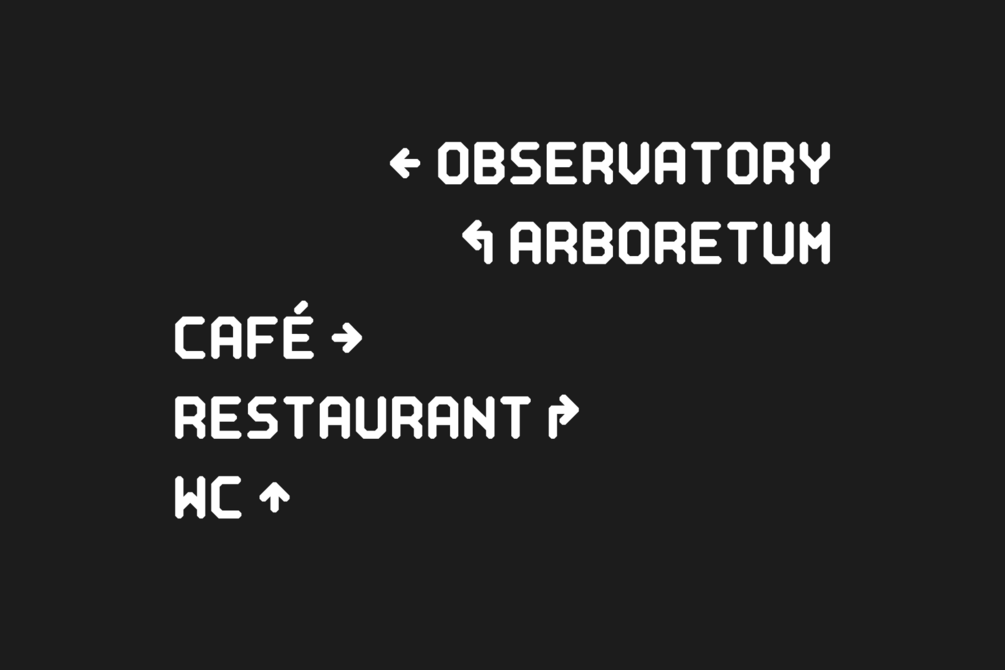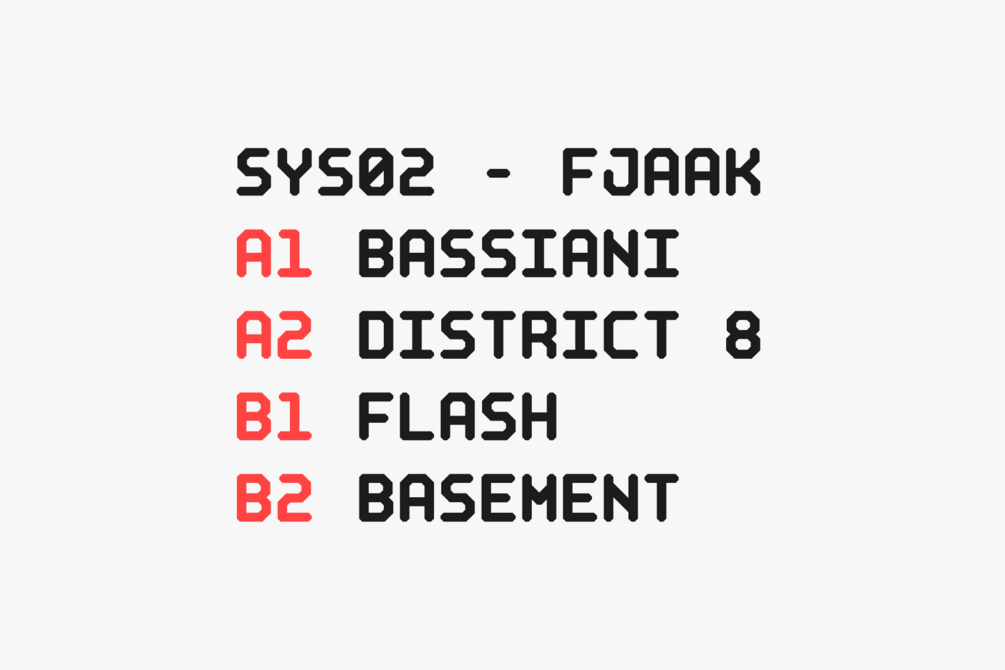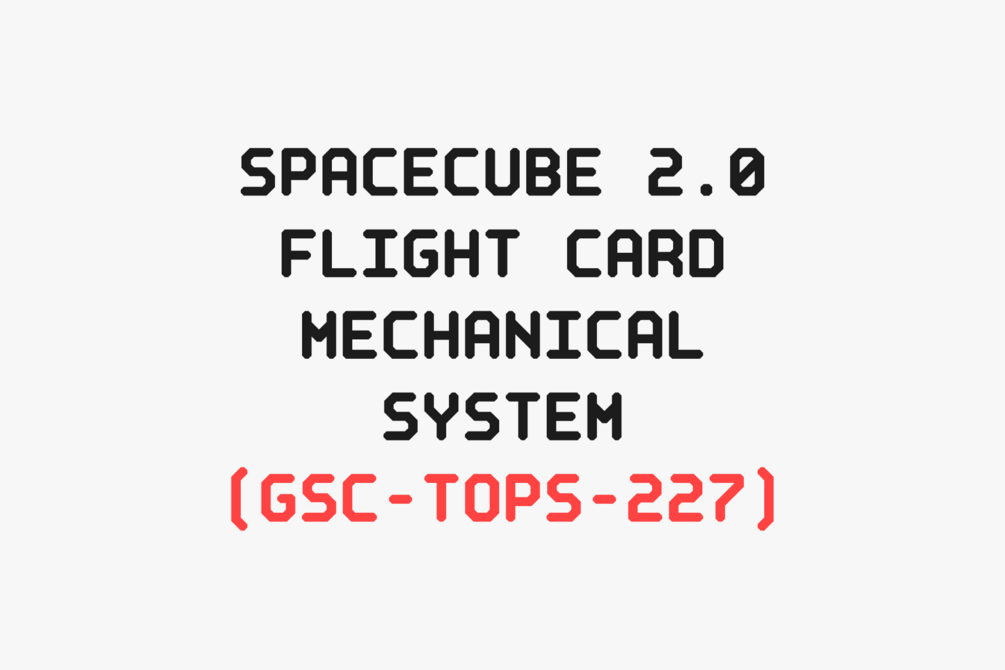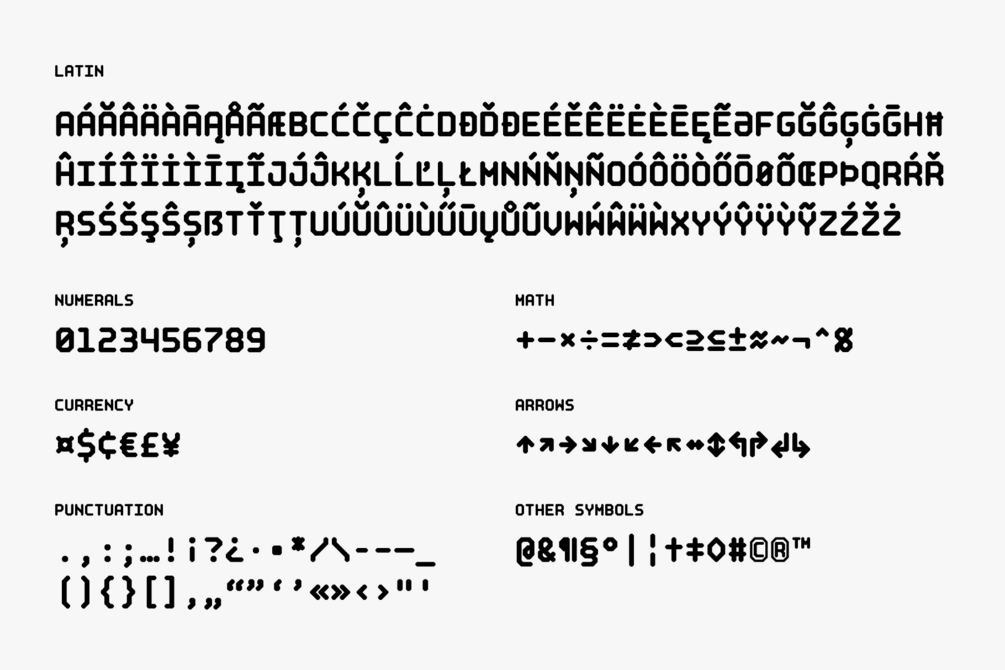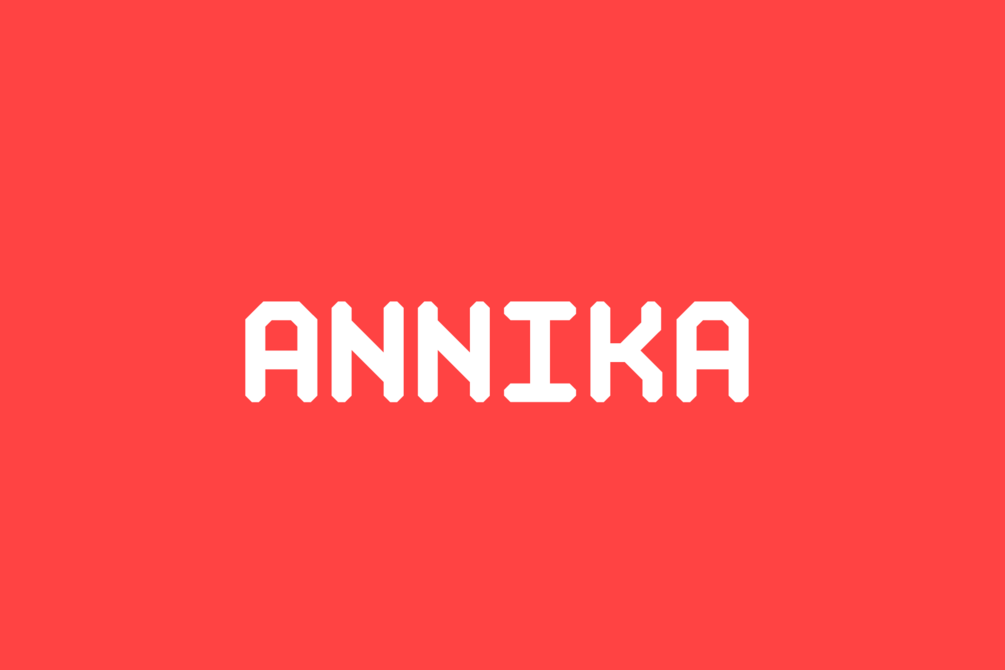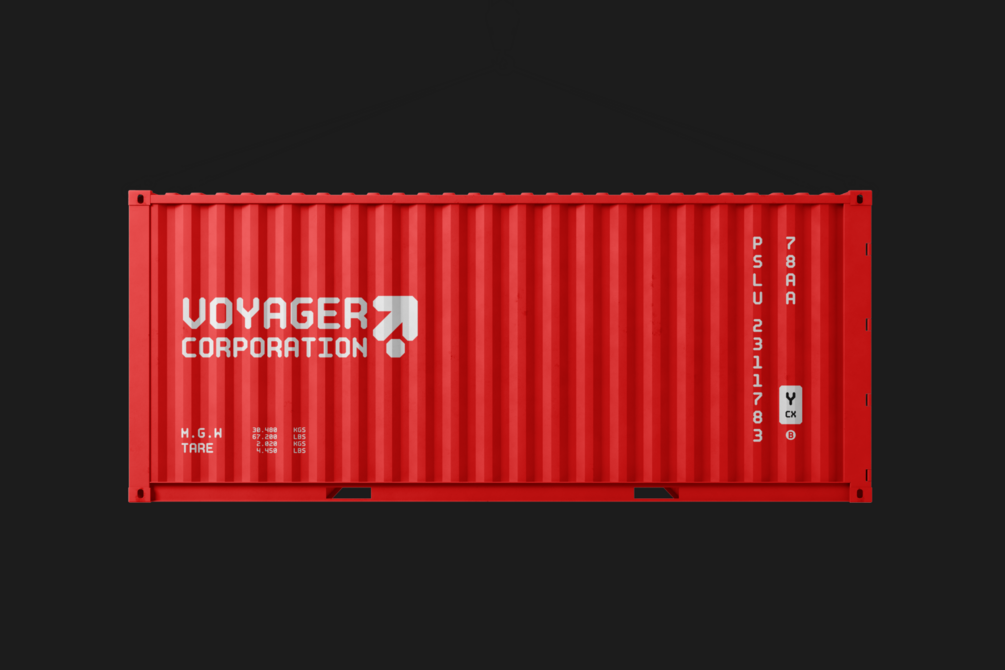
POI Annika
Annika takes its name from the asteroid 817 Annika which was discovered in 1916 by astronomer Max Wolf. Inspired by science fiction films and segmented displays, Annika is the perfect way to add an industrial and futuristic look to your work. This monospaced, all-caps typeface contains nearly 400 glyphs and support for a wide range of Latin-based languages.